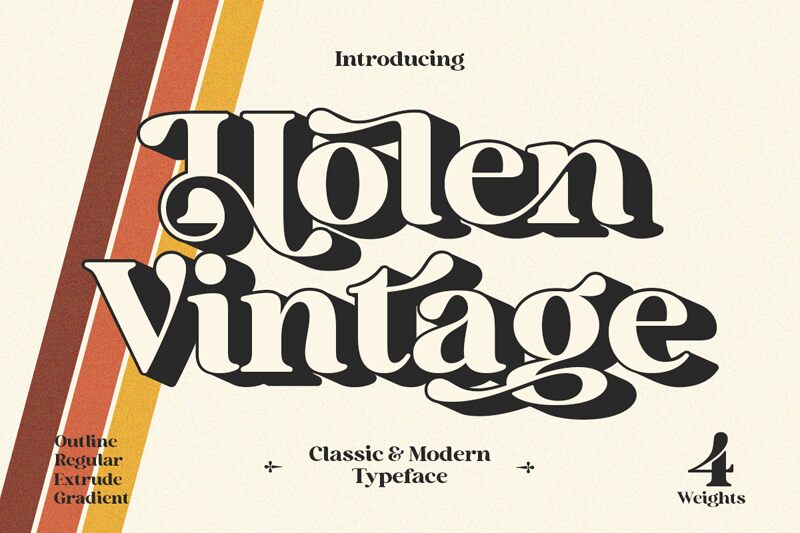
Holen Vintage font a serif typeface designed by Attract Studio with an elegant, classic, and vintage-inspired style. It creates a sophisticated mood by showcasing refined characters with balanced proportions for all its letters. The font has a beautiful old-style aesthetic that can be used without effort to generate attractive display then body texts.
Holen Vintage
Attract Studio
Muammar Kadafi